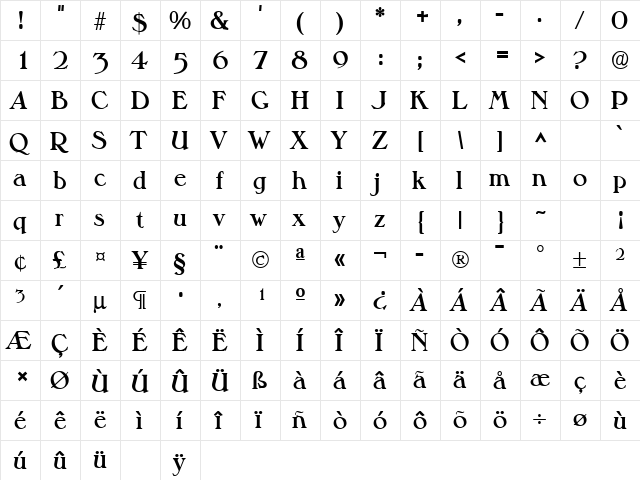
Melbourne Bold
Design Context for Melbourne Typeface
Melbourne offers clean, dependable letterforms without strong stylistic allegiance, making it a practical choice for designers who need flexibility. The heavy weight commands attention and anchors typographic hierarchies.